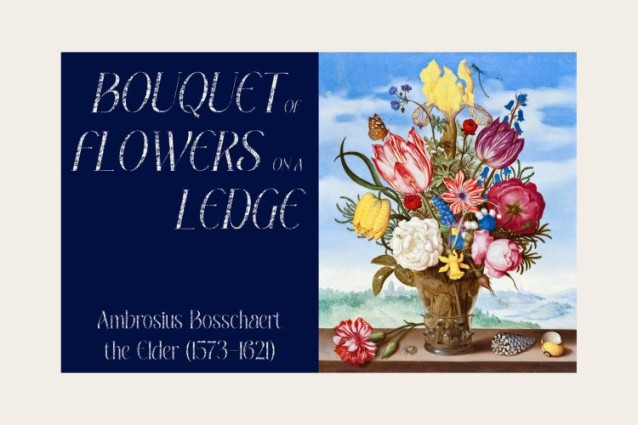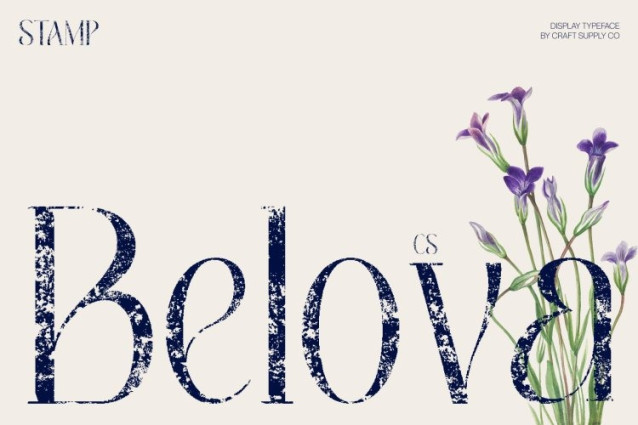
CS Belova Stamp Font
CS Belova Stamp Font This is an elegant serif font crafted with clean, slender lines and enhanced by a distinctive stamp texture. Its balanced structure expresses sophistication and clarity, while the stamped finish introduces a soft vintage character that adds warmth and artistic depth. The result is a typeface that feels polished yet expressive.
Modern Beauty with Textured Playfulness
What sets this font apart is its playful nuance within a modern framework. Graceful proportions and gentle curves create a fresh, stylish aesthetic, while the stamp effect adds subtle imperfections that bring personality and charm. This combination softens traditional serif formality, allowing beauty and creativity to shine through refined structure.
Refined Simplicity with Artistic Character
Embracing simplicity as a strength, the slender strokes and clean construction maintain an airy, elegant appearance. The textured detail enhances visual interest without overwhelming the design, creating a harmonious balance between sophistication and expressive warmth.
Perfect for Fashion and Editorial Elegance
Ideal for fashion branding, editorial layouts, posters, packaging, and beauty campaigns, this font elevates headlines and refined typographic compositions. Its fusion of modern elegance and vintage stamp texture ensures designs feel stylish, playful, and captivating with a timeless touch.